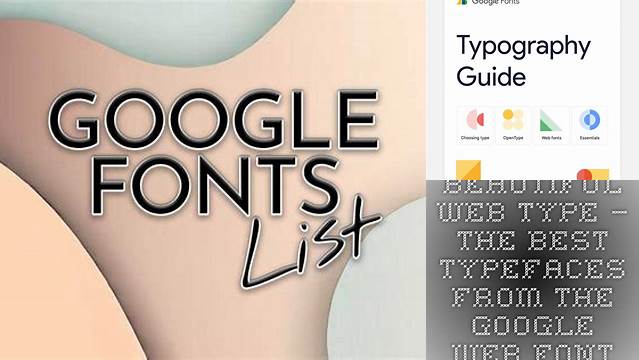
Google Fonts Directory: Your Web Typography Guide
Google Web Fonts has become a cornerstone for web designers and developers looking to elevate their projects with beautiful and functional typography. This comprehensive guide dives deep into the Google Web Fonts directory, exploring its vast library, practical applications, and how to seamlessly integrate these fonts into your websites. Whether you're a seasoned professional or just starting your journey into web design, this article will equip you with the knowledge and insights to harness the power of Google Fonts and create stunning, engaging online experiences.
Google Fonts: An Overview of the Web's Typography Powerhouse
Google Fonts, in essence, is a free and open-source library boasting an extensive collection of fonts designed to enhance the visual appeal and readability of your websites. It is a project initiated and maintained by Google, providing a diverse range of typefaces, from classic serifs and sans-serifs to unique display fonts and handwritten styles. The directory's significance stems from its accessibility, ease of use, and the fact that it's entirely free, making it an invaluable resource for designers and developers worldwide. Google Fonts allows you to choose from hundreds of different font families, each with multiple styles and weights, enabling you to tailor your typography to match the specific aesthetic and functionality of your website.
Benefits of using Google Fonts.
Google Fonts provides numerous benefits for web designers and developers. Its primary advantage lies in its extensive library of free fonts. The directory features a vast collection of typefaces, from classic serifs and sans-serifs to unique display fonts and handwritten styles. This allows you to find the perfect font to match your website's aesthetic and convey your brand's message effectively. The accessibility is another key benefit. As a free, open-source resource, Google Fonts eliminates the need to pay for expensive font licenses. This is particularly advantageous for small businesses, startups, and individual creators. With Google Fonts, you can achieve a professional and polished look for your website without incurring additional costs. Ease of use is another significant advantage. Integrating a font into your website is a straightforward process, typically involving adding a line of code to your HTML and then applying the font to specific elements within your CSS. This streamlined approach allows you to quickly experiment with different fonts and find the perfect fit for your project without complex setup or licensing issues.
Beyond the convenience and affordability, Google Fonts offers a range of practical advantages. Optimized performance is an important factor to consider. Google Fonts hosts its fonts on a global content delivery network (CDN). This ensures that the fonts load quickly for users worldwide, improving your website's speed and user experience. The directory offers extensive documentation and usage guides. This ensures that you can confidently implement and optimize your font choices for optimal performance and accessibility. You can also ensure that the fonts you select are compatible across various devices and browsers. This helps to create a consistent and engaging user experience. Moreover, Google Fonts promotes accessibility. Many fonts are optimized for readability, making your website accessible to a wider audience. The directory also provides information about the font's origin, its designer, and its suitability for different purposes. For example, you can choose fonts that are legible for people with visual impairments.
How to Choose the Right Fonts.
Choosing the right fonts is crucial for creating a visually appealing and user-friendly website. Google Fonts offers a vast selection of typefaces, making the decision process both exciting and potentially overwhelming. This section will explore the steps to take to select the perfect fonts for your project. Firstly, consider the purpose of your website and the message you want to convey. Is your website formal or casual? Modern or classic? Understanding your brand's identity and your target audience will help you narrow down your font choices. The right font can evoke specific emotions and associations. For example, a serif font may create a sense of tradition and authority, while a sans-serif font may project a sense of modernity and simplicity. Once you have defined your brand and target audience, start by browsing the Google Fonts directory. Take the time to explore different font families, paying attention to the font's style, weight, and overall character. Use the directory's filtering options to refine your search. For example, you can filter fonts based on their categories (serif, sans-serif, display, etc.), languages supported, and other criteria.
Secondly, try to select no more than two or three fonts for your website. Using too many fonts can make your website look cluttered and unprofessional. One font should be dedicated to headings and titles, and the other for body text. It can also include a third for accents or emphasis. Thirdly, consider the readability of the fonts. The body text on your website must be easy to read. Choose fonts that are legible, especially at smaller sizes. The directory offers font previews, which allow you to see how a font looks in various sizes and contexts. Furthermore, experiment with font pairings. Once you have selected your fonts, experiment with different combinations to see which ones work best together. Good font pairings will complement each other. They will also create a visual harmony.
Google Web Fonts Library: Deep Dive into Typography Selections
The Best Serif Fonts in Google Fonts
Serif fonts, with their characteristic small strokes at the end of each letter, traditionally create a sense of elegance, authority, and readability, making them a solid choice for various web design projects. Within the Google Web Fonts library, a curated selection of serif fonts stands out for their versatility and design appeal. These fonts bring a classic touch to your web pages. Popular choices include 'Playfair Display', a high-contrast serif font that lends a sophisticated and refined look. It’s ideal for headlines and titles. 'Lora' is another excellent option, offering a balanced combination of modern and classic features. Lora's readability makes it well-suited for body text, delivering an enjoyable reading experience. Other notable serif fonts include 'Roboto Slab', the slab serif version of the popular Roboto family. It is known for its sturdy appearance. It can bring a touch of confidence to the design. 'Merriweather' stands out for its friendly and approachable appearance, providing a touch of warmth to your content. These are excellent choices for body text. The selection of serif fonts in Google Fonts caters to diverse design needs. It ensures that you can easily find the perfect font to match your brand's identity and project requirements. Each font comes with variations of weight and style. Experimenting with these options allows you to fine-tune the typography and add visual interest. Selecting a suitable serif font can significantly enhance the aesthetic and readability of your website. It can ultimately contribute to a more engaging user experience.
Exploring Popular Sans-Serif Fonts on Google Fonts
Sans-serif fonts, lacking the small strokes found in serif fonts, are recognized for their modern and clean appearance. Google Fonts offers a rich collection of sans-serif typefaces, perfectly suited for contemporary web design. They are also highly readable across different screen sizes. 'Roboto', one of the most popular choices, is known for its versatility, making it a perfect fit for body text, headings, and user interface elements. Its clean and geometric forms deliver a clear and readable user experience. 'Open Sans' is another widely used font. Its open and friendly appearance makes it a versatile font for all kinds of projects. It also guarantees optimal readability. 'Lato' is known for its warm and approachable appearance, making it an ideal option for body text. It provides a welcoming feel. 'Montserrat', inspired by urban typography, offers a stylish and contemporary look, perfect for headings and display text. 'Raleway' with its elegant design, is an excellent choice for both headlines and body text, conveying a feeling of sophistication. Each sans-serif font on Google Fonts provides its unique style, ensuring you will find the perfect match for your design requirements. Experiment with font weights and styles to create a hierarchy and visual interest. The versatility of sans-serif fonts makes them a favorite among web designers. They ensure a modern and user-friendly website design.
Display Fonts: Adding Flair and Personality
Display fonts serve the purpose of grabbing attention, adding personality, and making a visual impact. They are best used for headlines, titles, and short bursts of text. They create a striking visual experience. Google Fonts features a vast selection of display fonts, each bringing its unique character. Fonts like 'Anton' create a bold and impactful statement. 'Bangers' offers a fun and playful vibe. 'Righteous' provides a vintage and retro feel. 'Pacifico' provides a friendly and inviting look. 'Luckiest Guy' adds a touch of playfulness. The unique character of each font enables designers to create designs. The fonts are ideal for branding, promotional materials, and creative website elements. Selecting a display font requires care. It is important to choose fonts that match your brand's identity. Ensure that they harmonize with your other fonts and design elements. Using display fonts sparingly is essential. The best practice is to use them only for key elements. It also ensures that they do not compromise the website's overall readability. The variety of display fonts on Google Fonts provides endless possibilities for creativity. These are great for creating visually stunning and memorable web designs.
Monospace Fonts for Code and Technical Content
Monospace fonts, also known as fixed-width fonts, are essential for displaying code snippets, technical documentation, and any content where equal spacing between characters is crucial. Google Fonts offers a select group of monospace fonts that are optimized for readability. These fonts are designed to facilitate clear presentations of code and text. Popular options include 'Roboto Mono', a modern monospace font that works great for code and text. 'Source Code Pro', with its clean design, ensures clear readability in code and text. 'Oxygen Mono', provides a legible and functional choice. These monospace fonts help developers and writers create a layout. They also make technical content easier to understand. When selecting a monospace font, it is vital to consider factors like the font's spacing, character shapes, and the overall visual appeal. Opting for a monospace font with clear differentiation between characters can help improve readability. Monospace fonts from Google Fonts offer essential resources for web developers, programmers, and technical writers. They help them to deliver clear, professional, and well-organized technical content.
Integrating Google Fonts into Your Website: A Step-by-Step Guide
Embedding Fonts Using the <link>
Method
Embedding Google Fonts into your website is a straightforward process. The <link>
method is the most common way to integrate fonts. It involves adding a specific line of code to your HTML. Start by visiting the Google Fonts directory and selecting the font you wish to use. Once you have chosen your font, click on the 'Select this style' or '+' button. This adds the font to your collection. Next, click on the 'View selected families' button. You'll see a code snippet in the 'Embed' tab, which is a <link>
tag. This code should be placed within the <head>
section of your HTML document. This ensures that the font is loaded before the content of your webpage is displayed. You can select multiple font styles. The fonts will be downloaded and applied to your website. Now, go to your CSS stylesheet. Specify the font-family property for the elements where you want to use your selected font. Using CSS, you can precisely manage where each font applies. You can customize its size, weight, and other aspects. The <link>
method provides a simple and effective way to incorporate Google Fonts into your website. It guarantees a smooth and easy integration. The <link>
method is a reliable and optimized method for importing web fonts.
Using @import
in Your CSS Stylesheet
Another method for embedding Google Fonts into your website involves using the @import
directive in your CSS stylesheet. The @import
method is similar to the <link>
method. It provides a convenient way to add fonts to your website. First, visit the Google Fonts directory. Select your desired fonts and click on the '+ Select this style' button. After selecting the fonts, click on the 'View selected families' option. You'll find a code snippet under the 'Embed' tab. This time, it begins with the @import
directive. This code should be placed at the very top of your CSS file. This guarantees that the fonts load before any other styles are applied. In your CSS stylesheet, specify the font-family property for the elements where you want to apply your selected fonts. This ensures that your website uses the correct font. The @import
method provides an alternative solution. It allows you to embed Google Fonts directly within your CSS files. It makes the font integration process smooth and simple. The @import
method can be effective when you prefer to keep all your font-related code in your CSS. It can be a good option for managing your site’s typography.
Loading Fonts with JavaScript (Advanced)
For more advanced users, loading Google Fonts with JavaScript can be a powerful way to further customize and optimize your website's font loading process. This approach allows you to control the loading behavior of your fonts. It optimizes your website's performance. To begin, you still start by selecting your desired font from the Google Fonts directory. However, instead of copying the <link>
or @import
code, you will use the Web Font Loader library, a popular JavaScript library. You can find this library from the official website of Google. Include the Web Font Loader script in your HTML document. Typically, you should load it before your closing <body>
tag. Then, you will use the Web Font Loader's configuration options. You specify which fonts to load. You can also customize the loading behavior. You can set the font to load asynchronously, which avoids blocking the rendering of your page content. This contributes to a faster website loading time. The main advantage of using JavaScript to load fonts lies in the flexibility. This will help you to fine-tune your font loading and make the website more effective. Using the JavaScript method provides you with enhanced control over your website's font loading process. This approach allows for greater performance and customization.
Optimizing Google Fonts for Performance and Speed
Subsetting Fonts for Faster Loading Times
Font subsetting is an essential technique for optimizing the performance and speed of your website when using Google Fonts. Subsetting reduces the amount of data that needs to be downloaded by your website's users. You do this by removing unused characters and glyphs from the font files. When you use a font, it may contain hundreds or even thousands of characters. These could be used for different languages. Many of these characters are unlikely to be used on your website. By subsetting a font, you can remove all the characters that are not needed. This will reduce the font file size and improve the loading time. Google Fonts offers a simple way to subset your fonts. When you select a font in the Google Fonts directory, you can specify which character sets you require. For example, you can specify that you only need the basic Latin character set. This will substantially reduce the font file size. You can also customize your character selection when using a font. This will further reduce the file size. Use the right font weights. Avoid loading font weights you don’t need. The lighter weights load faster. Optimizing your fonts through subsetting can significantly enhance your website's performance. It will also improve the user experience. Your users can see your website content much faster. This ultimately contributes to a better user experience.
Reducing HTTP Requests and Leveraging Caching
Reducing HTTP requests and leveraging browser caching are critical for optimizing the performance of your website when using Google Fonts. Every time a user visits your website, their browser must download the necessary resources. These include HTML, CSS, JavaScript, and images. Each request adds overhead and slows down the page loading time. To minimize HTTP requests, you can consolidate your CSS files and combine multiple font requests into a single one. With Google Fonts, you can select multiple font styles. Then you can load them with a single <link>
tag or a single @import
directive. This reduces the number of HTTP requests your website makes. Browser caching allows the user’s browser to store website resources locally. This includes fonts. By enabling caching, when a user revisits your website, the browser can load the fonts from its cache. This eliminates the need to download the fonts again. To ensure that Google Fonts are cached effectively, set appropriate cache headers in your web server's configuration. You can also specify the duration for which the resources should be cached. By reducing the number of HTTP requests and leveraging browser caching, you can greatly improve your website's speed and user experience. This will result in faster loading times and better performance.
Asynchronous Font Loading Techniques
Asynchronous font loading is a valuable strategy for optimizing the performance of your website. When a browser loads fonts, it typically blocks the rendering of your website. It waits for the font files to download. This can slow down the initial loading time. Asynchronous loading allows your website's content to display before the fonts are fully loaded. This will improve the user experience. With Google Fonts, you can use asynchronous loading methods. This ensures that your website content remains accessible. One common technique is to add the `rel=